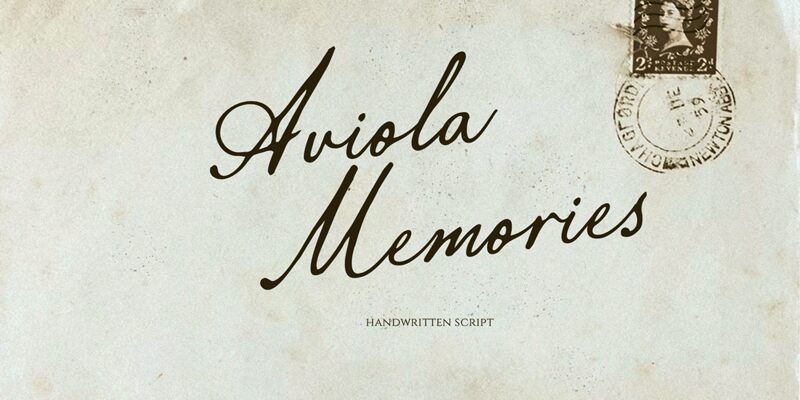
Aviola Memories is a stunning semi-light vintage calligraphy font designed by Letterhend Studio. This elegant font boasts a unique, hand-lettered look that adds a touch of sophistication to any project. Its timeless style makes it perfect for wedding invitations, greeting cards, branding projects, and much more. The subtle curves and intricate details of Aviola Memories make it an excellent choice for those looking to add an element of old-world charm to their designs. Whether you're creating a logo or designing a website, this semi-light font will add an air of elegance and refinement that is sure to impress your audience.